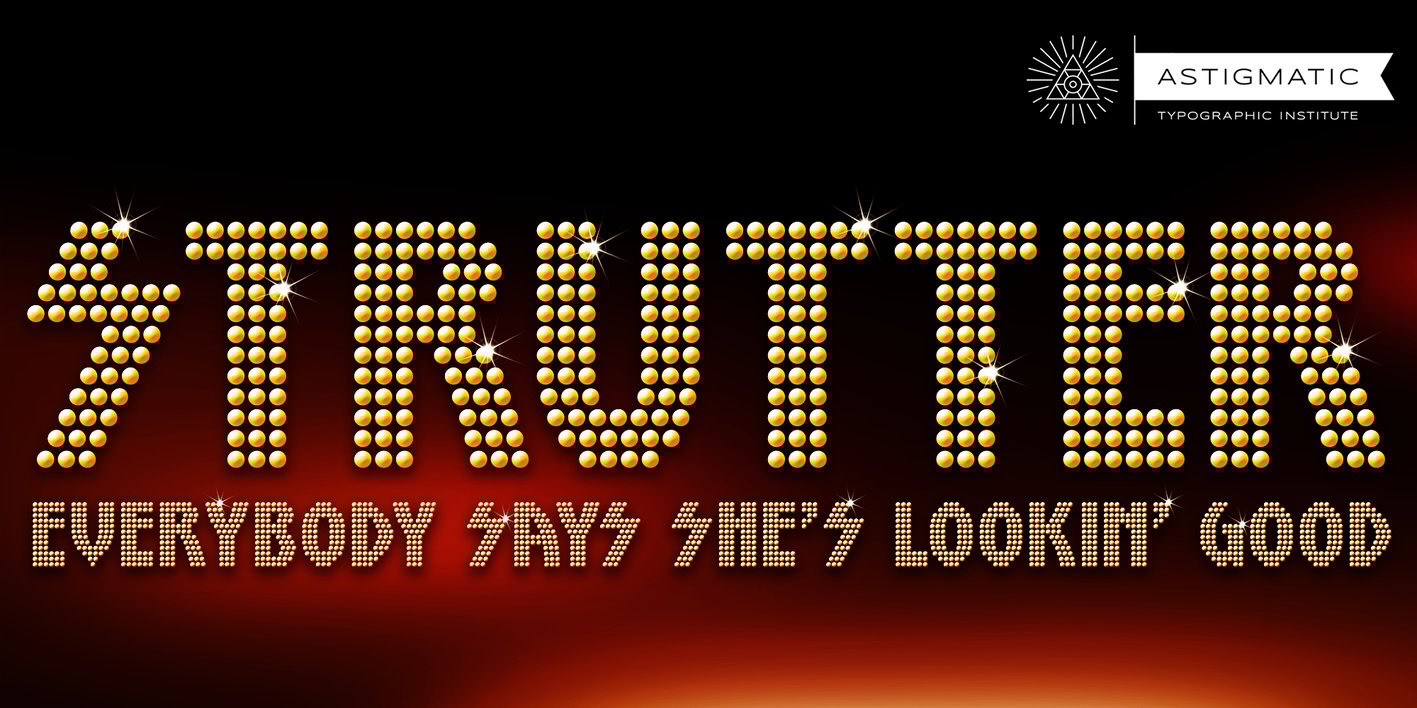
Strutter AOE Font is perfect for fashion runway shows, confident brand identities, swagger-focused campaigns, bold personality promotions, strutting performance arts, fashion week materials, attitude-driven advertising, confident lifestyle brands, catwalk event signage, and boldly confident marketing communications.
Strutter AOE Font is exciting because it embodies the bold confidence and magnetic charisma that commands attention with its powerfully stylized letterforms that seem to walk the runway with unapologetic swagger and carry the fearless self-assurance that makes certain individuals impossible to ignore. Its confidently commanding character design reflects both the physical presence that defines natural performers and the psychological strength that enables people to own their space with authentic authority, making it perfect for brands celebrating confidence and bold self-expression.
Strutter AOE Font family includes light, regular, medium, bold, and black weights, each with corresponding italic versions. The font family also features confident ornaments, swagger-inspired ligatures, bold symbols, and strutting decorative elements that enhance its commanding aesthetic and attitude-focused versatility.
This boldly confident typeface represents the perfect fusion of magnetic charisma and unapologetic self-expression. Strutter AOE Font Free Download enables designers to experience its commanding potential before making a commercial commitment. The font's ability to convey both fearless confidence and magnetic appeal makes it ideal for fashion brands, entertainment companies, and lifestyle businesses targeting audiences seeking authentic confidence and bold self-expression.
Whether you're developing fashion brand identities, creating confident campaign materials, or designing bold personality communications, Strutter AOE Font brings an unmistakable sense of commanding presence and fearless swagger to every project. Its powerfully stylized character and confidence heritage create powerful connections that resonate with audiences seeking authentic self-assurance and bold lifestyle experiences.
The font's versatility excels in fashion and entertainment environments where confidence and bold presence are essential. Its commanding character makes it particularly effective for fashion houses, entertainment venues, confidence coaching services, and lifestyle brands seeking to establish powerful relationships with audiences passionate about bold self-expression and authentic confidence.
For designers working on projects requiring genuine confidence appeal and bold personality, Strutter AOE Font offers an exceptional solution. Its boldly commanding presence and comprehensive swagger-themed elements provide the tools needed for creating truly confident communications, while its fearless attitude ensures your designs capture the magnetic charisma and unapologetic self-assurance that defines the most compelling confident personalities and bold lifestyle experiences.